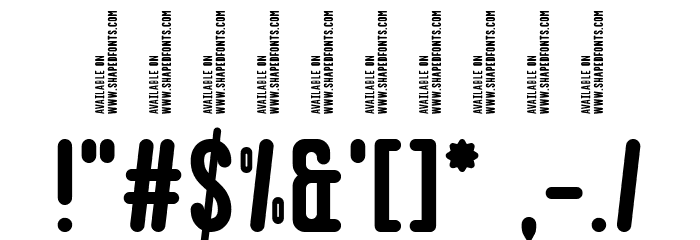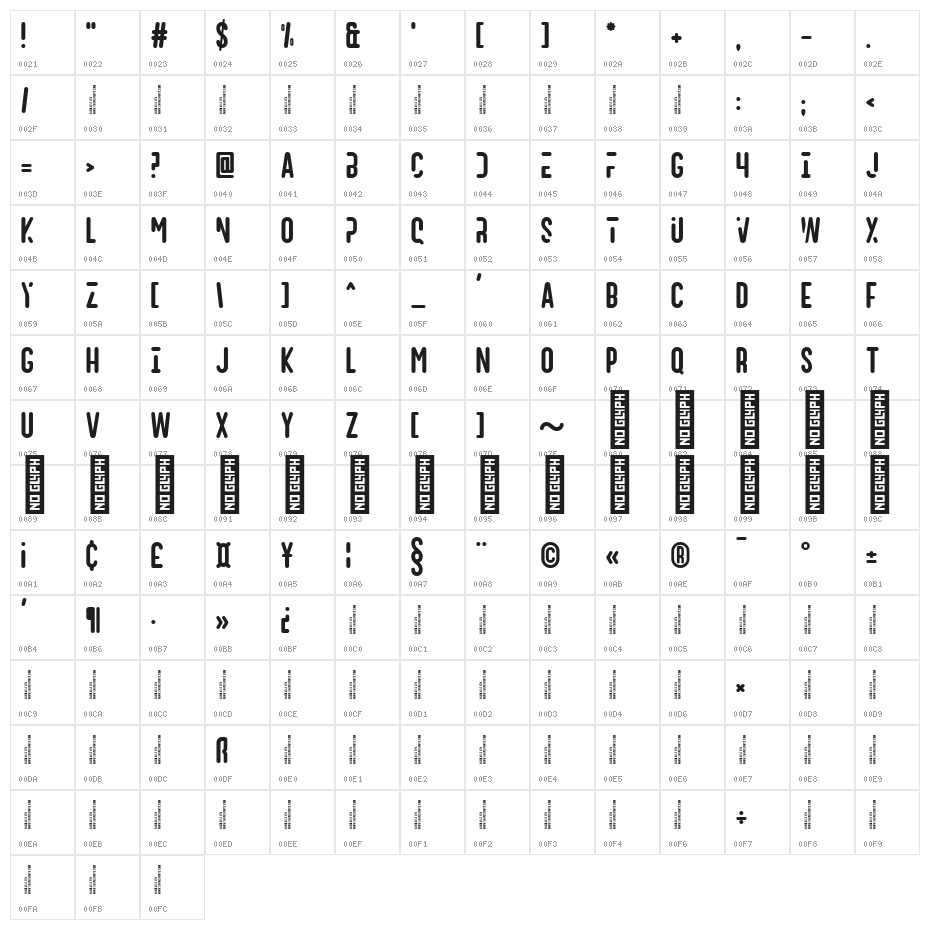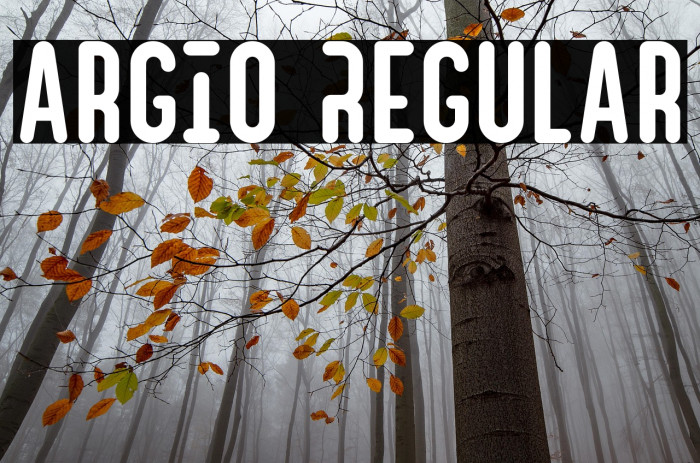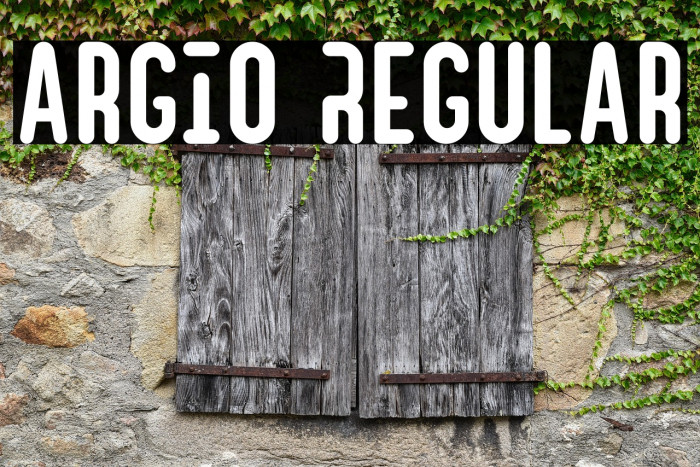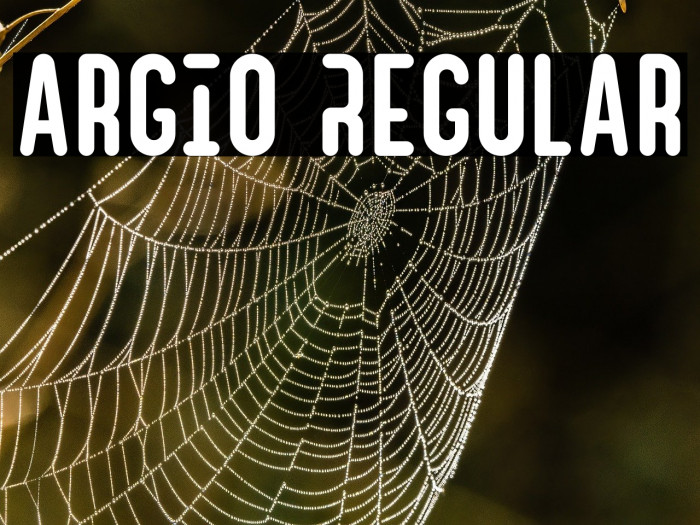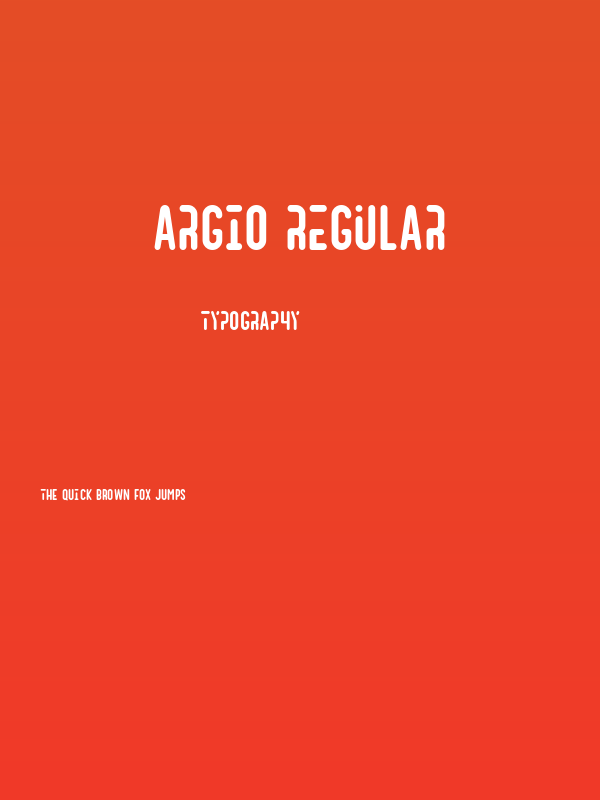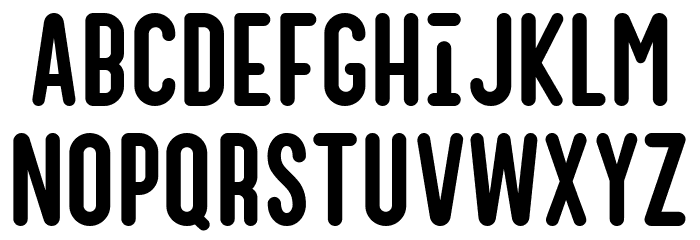
Argio Regular Font
Argio Regular Description
This font features a bold, modern design with a unique geometric structure. The characters are rounded and have a consistent stroke width, giving them a sleek and contemporary appearance. The uppercase letters are particularly striking, with a futuristic style that is both eye-catching and readable. The lowercase letters maintain the same boldness, ensuring uniformity across text. Special characters and numbers are designed to match the overall aesthetic, making this font versatile for various uses. The font's distinct style makes it suitable for projects that require a modern and innovative look.